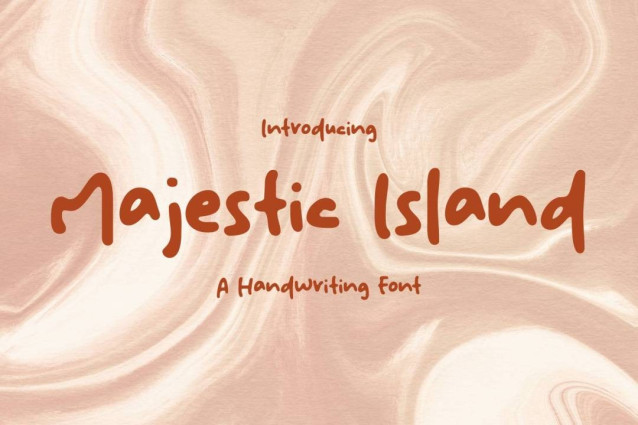
Majestic Island Font
Majestic Island Font is a simple and friendly handwritten font. Its natural and unique style makes it incredibly fitting to a large pool of designs. The only limit is your imagination!